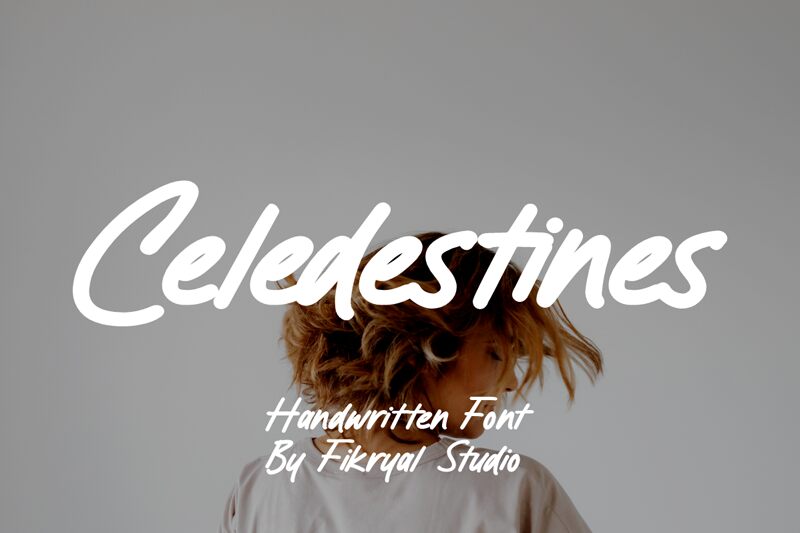
Celedestines Light font, part of the Celedestines family designed by Fikryal Studio, captivates with its elegant handwritten style. This font exudes warmth and personality, combining delicate strokes with a graceful movement that feels both inviting and sophisticated. The lightness of its forms lends a subtle airiness, perfect for conveying emotions in designs.
Visually striking, Celedestines Light is ideal for creative applications such as wedding invitations, branding projects, and artistic posters where a touch of individuality is desired. Its unique charm makes it particularly suited for personal communication or any context where expressing authenticity matters. The font harmonizes seamlessly across various platforms while maintaining its distinctive flair, ensuring every word resonates with heartfelt sincerity.
Celedestines Light
Celedestines by Fikryal Studio